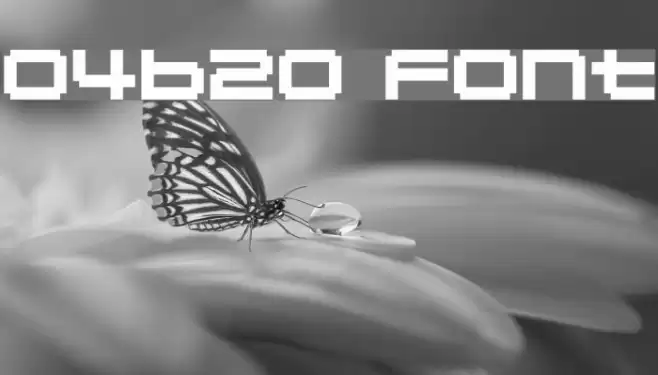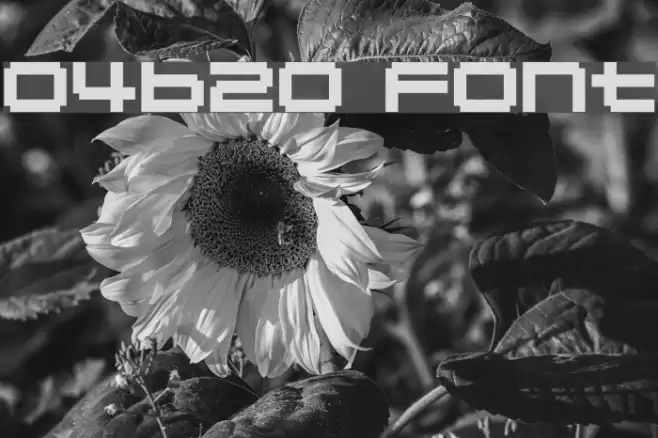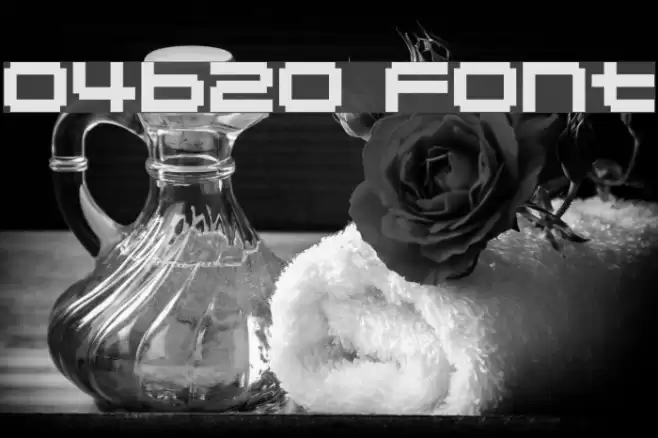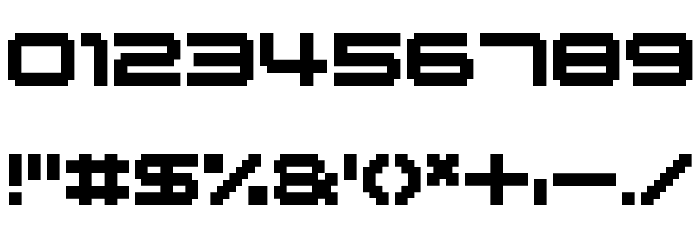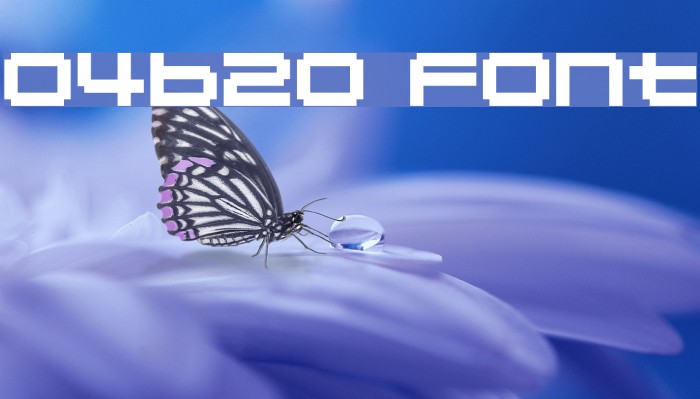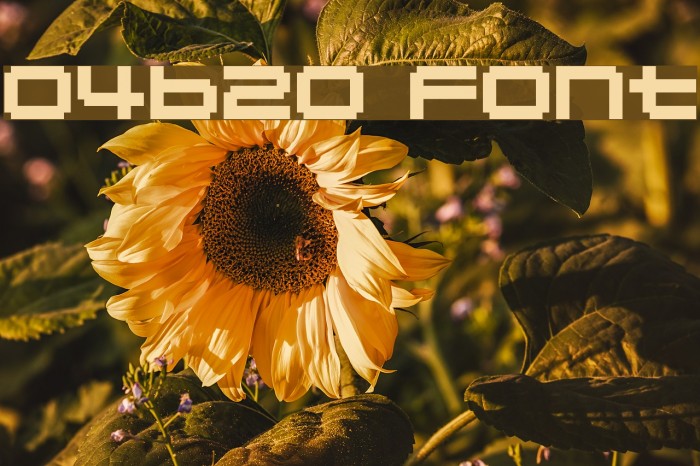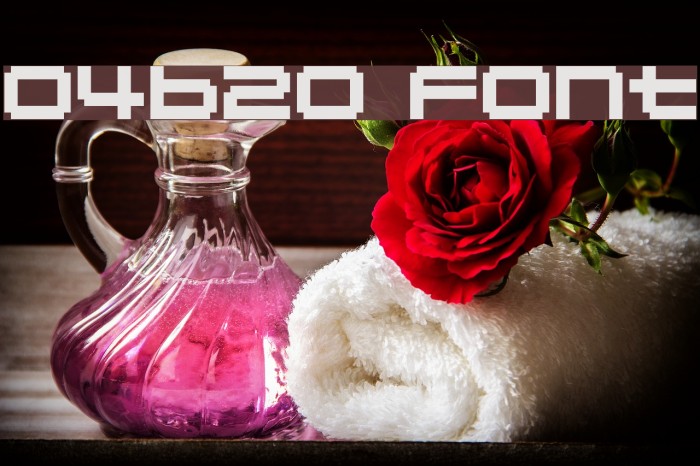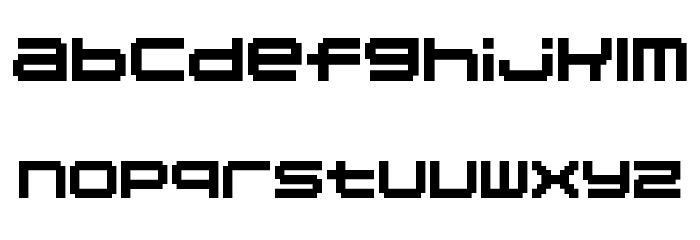
04b20 Font
04b20 Description
This font features a pixelated, blocky design reminiscent of early digital displays and video games. Each character is composed of square, uniform pixels, giving it a distinctly retro and digital aesthetic. The uppercase and lowercase letters maintain a consistent height, with minimal differentiation between them, enhancing the uniformity and simplicity of the design. Numbers and special characters follow the same pixelated style, ensuring a cohesive look across all glyphs. The font's geometric structure and lack of curves make it highly legible at small sizes, ideal for digital interfaces or projects requiring a nostalgic, tech-inspired feel.
A pixelated, retro-style font with a digital, blocky appearance from Uncategorized fonts.
- Overall Style: Retro, Digital
- Use Case: Headlines, Logos, Digital interfaces